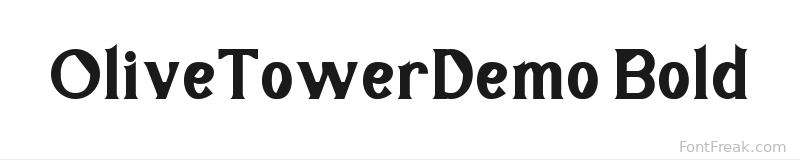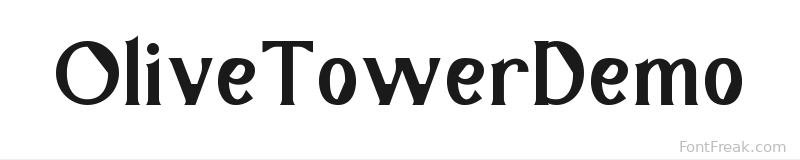
OliveTowerDemo
OliveTowerDemo Bold
OliveTowerDemo is a striking display font designed by Noah Type, falling under the category of bold serif typefaces. This font showcases a unique blend of modern and classic design elements, making it versatile for various applications. Its visual characteristics include a strong stroke weight and a balanced contrast that enhances legibility while maintaining an eye-catching presence. The generous spacing between letters adds to its readability, making it suitable for both print and digital mediums.
The OliveTowerDemo font is particularly well-suited for a range of creative projects. It shines in wedding invitations, where its elegant yet bold aesthetic can set a sophisticated tone. Movie posters benefit from its dramatic flair, drawing attention without overwhelming the visuals. Additionally, restaurant menus can leverage its distinctive style to create an inviting atmosphere, making the dining experience feel more special. Content creators, especially graphic designers and small business owners, will find this font an excellent choice for branding materials, promotional graphics, and social media posts.
What sets the OliveTowerDemo font apart is its ability to combine boldness with elegance, making it a standout option for anyone looking to elevate their design projects. With the OliveTowerDemo font free download, you can easily incorporate this exceptional typeface into your work, ensuring your designs have a memorable impact.